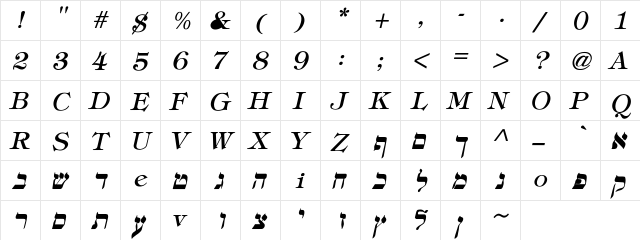
Hebrew-Italic Regular
Design Context for Hebrew-Italic Typeface
Hebrew-Italic offers clean, dependable letterforms without strong stylistic allegiance, making it a practical choice for designers who need flexibility. The dynamic lean of this cut emphasises speed and emphasis in any layout.
Pro Tip: Use Hebrew-Italic for emphasis, pull quotes, and subheadings where its slanted energy can add rhythm to the layout.